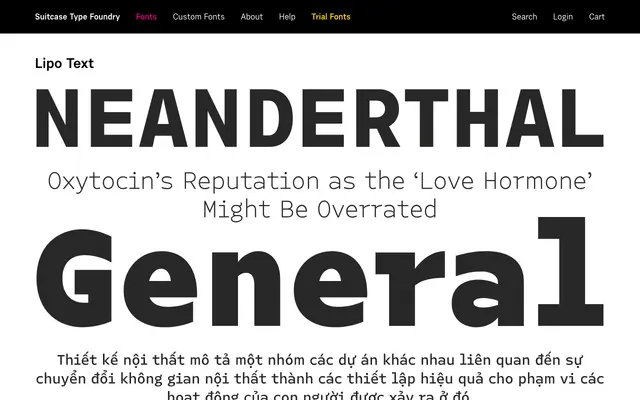
A text-optimised serif from Suitcase Type Foundry, positioned as the smaller-size companion within the broader Lipo family.
Part of the Lipo type system, which spans 63 fonts, Lipo Text is pitched at continuous reading and smaller point sizes. Suitcase Type Foundry are a Czech studio with a track record of careful text type, and the Text subfamily sits alongside other optical variants within the Lipo range. Limited information was available from the page at time of entry.
The 'Text' designation suggests a serif optimised for small-size reading; without further detail the family appears to be a text-grade serif, likely with humanist or transitional characteristics given Suitcase's general output.